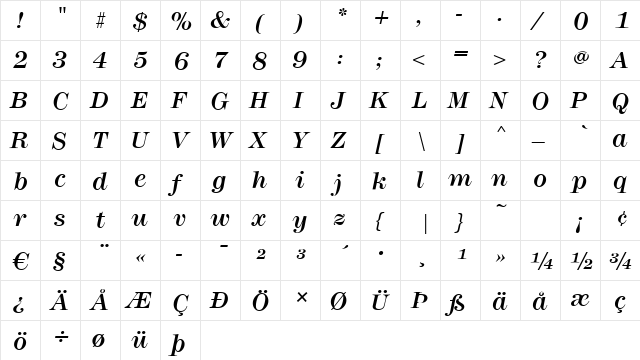
Montpellier Italic
Design Context for Montpellier Typeface
Montpellier takes a measured approach to typography — its balanced proportions and neutral character make it a reliable workhorse for both digital and print work. The dynamic lean of this cut emphasises speed and emphasis in any layout.
Pro Tip: Try Montpellier for annotation and caption copy alongside an upright companion — the contrast in angle creates a dynamic but ordered typographic system.